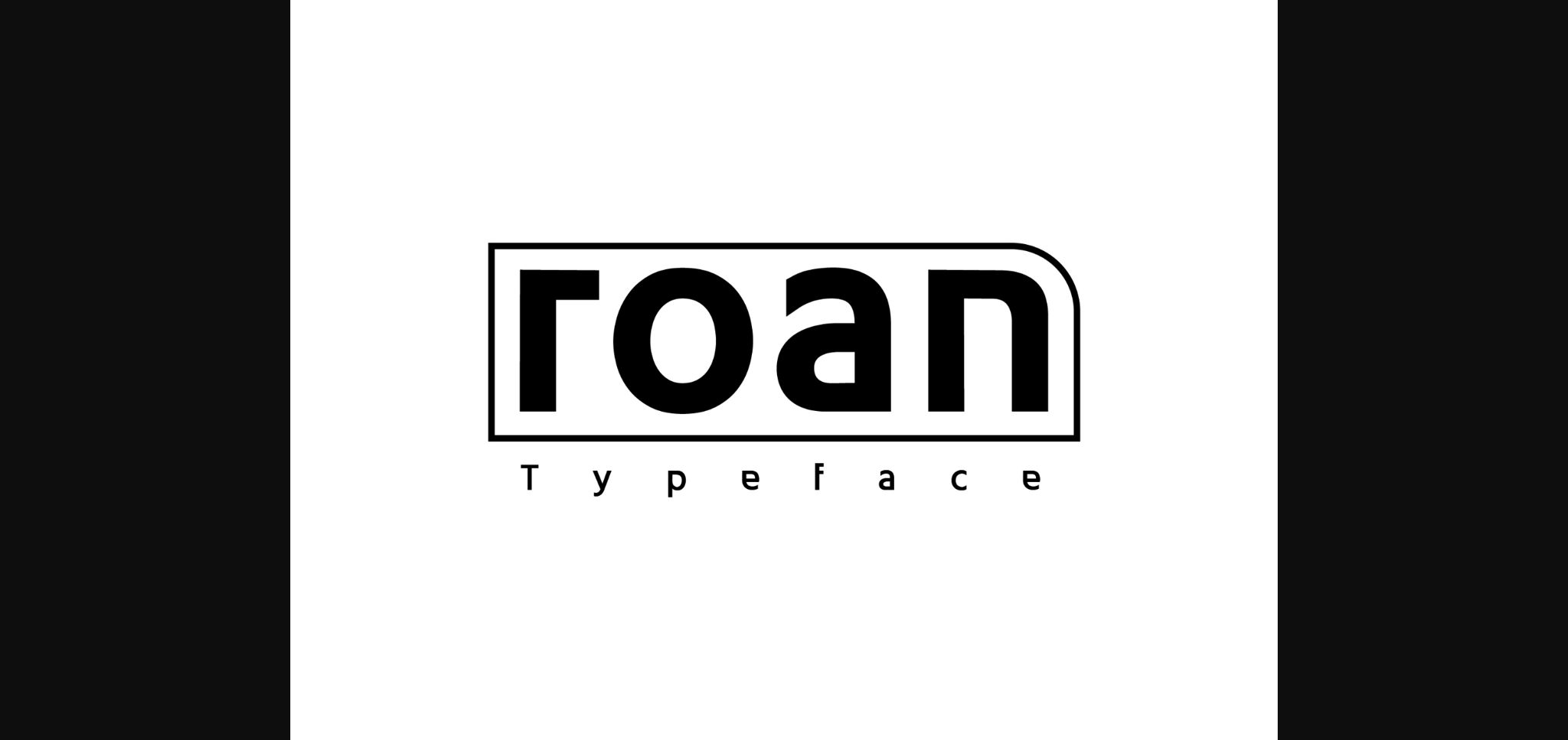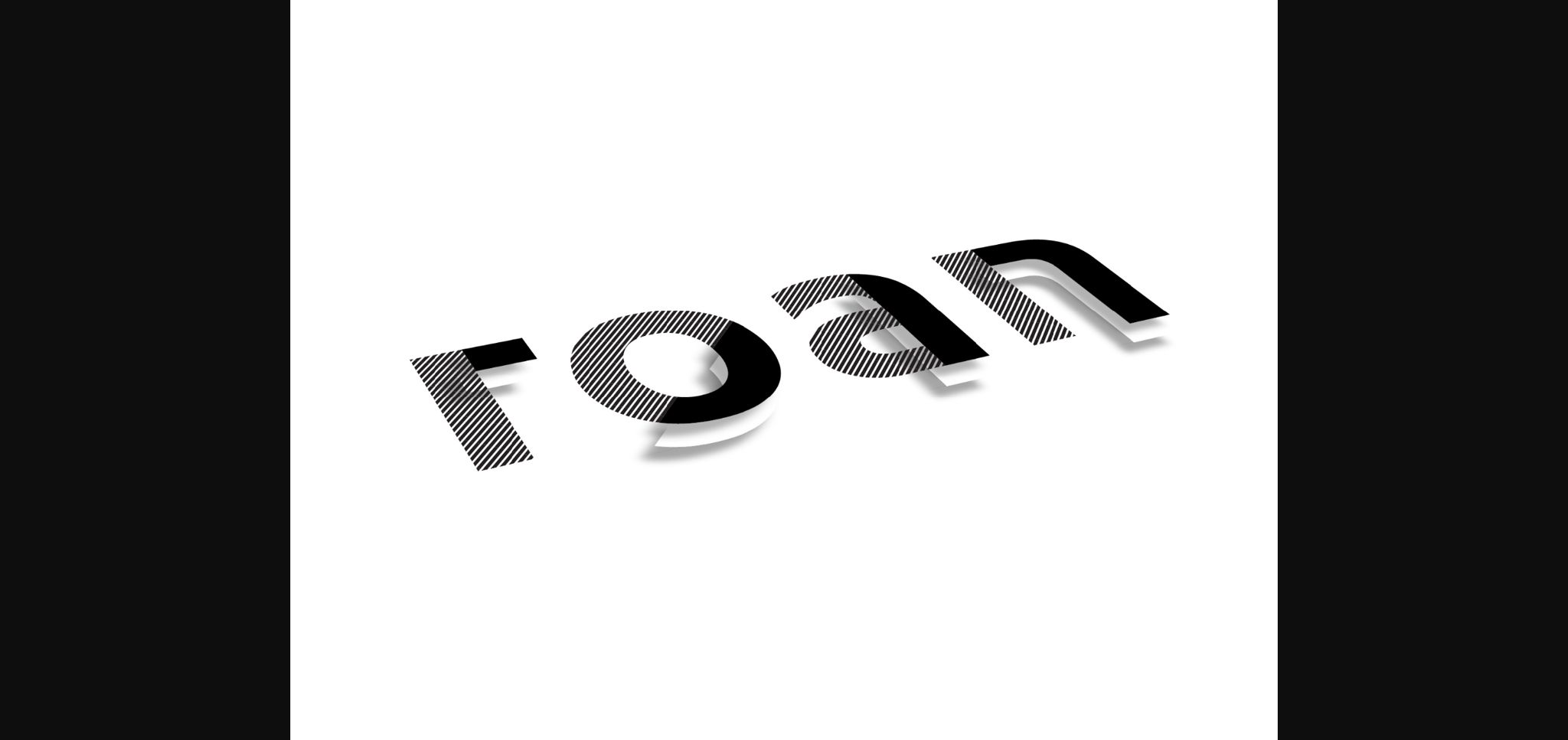
HomeSans Serif FontsRoan Font Sans Serif Fonts Roan Font FacebookXPinterestWhatsApp 1 of 5 ... Roan Font Poster 2... Roan Font Poster 3... Roan Font Poster 4... Roan Font Poster 5... About Roan Font Roan is a thick lettered and simple sans serif font. It can easily be matched to an incredibly large set of projects, so add it to your creative ideas and notice how it makes them stand out! DOWNLOAD NOW People also explored Reon Font Get Married Font Modern Designer Font Panther Black Harvester Font Christmas Notification Font Whirlwind Disaster Font About 60’s Doodle Font Cute Dino Font 307 0 TagsRoanRoan Font Previous articlePurefly FontNext articleLuke Font LEAVE A REPLY Cancel reply Comment: Please enter your comment! Name:* Please enter your name here Email:* You have entered an incorrect email address! Please enter your email address here Website: Save my name, email, and website in this browser for the next time I comment. Personal Use Free Hashira Mt Personal Use Free Read more about this font Frizton Personal Use Free Read more about this font Zelega Zenega Personal Use Free Read more about this font Williana Personal Use Free Read more about this font BLOG Free Fonts Risk: Why Free Fonts Can Be Dangerous for Designers Free Fonts Risk: Why Free Fonts Can Be Dangerous for Designers Using free fonts is a common practice in web and graphic design. However, the... Top 10 Handwritten Fonts That Elevate Your Designs Exploring Font Trends Modern Sans-Serif Fonts That Brands Love in 2025